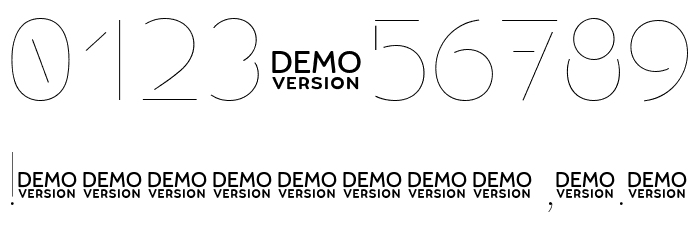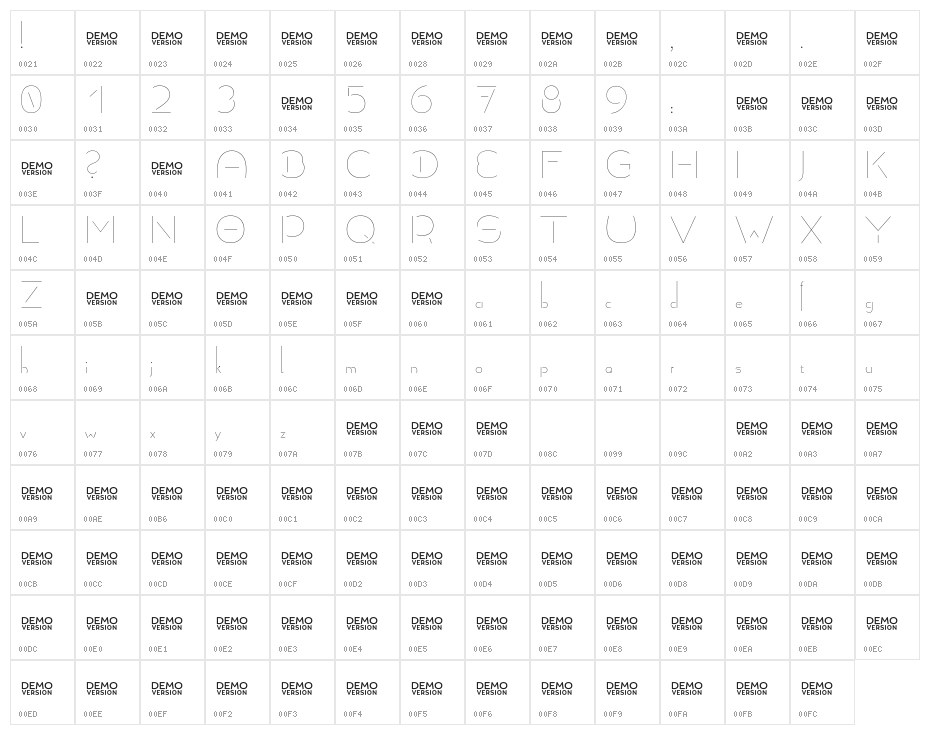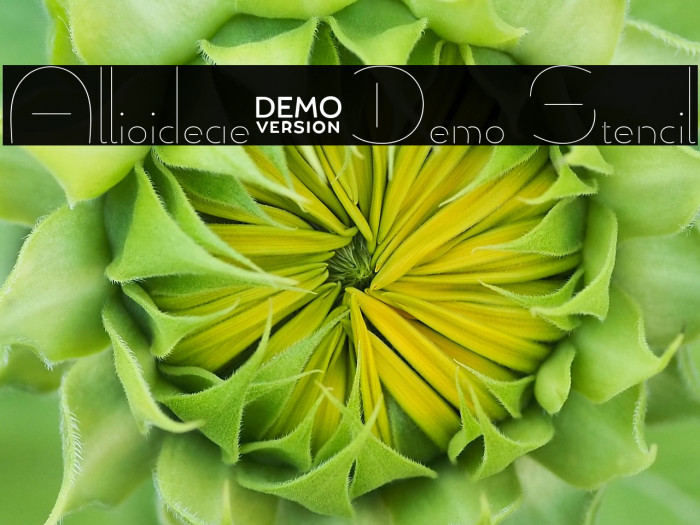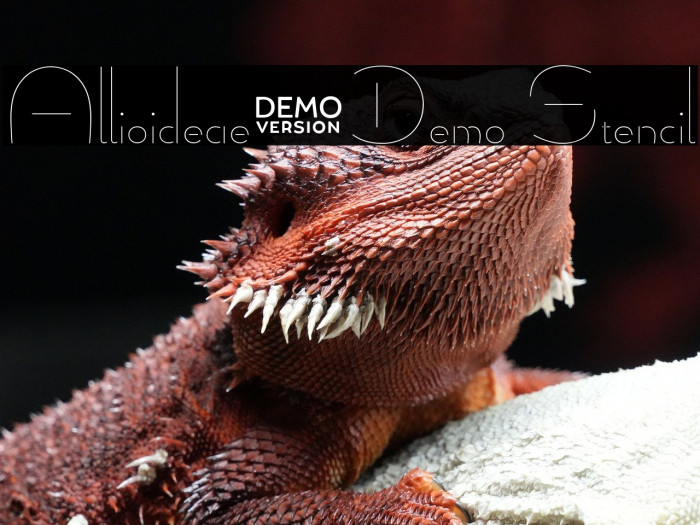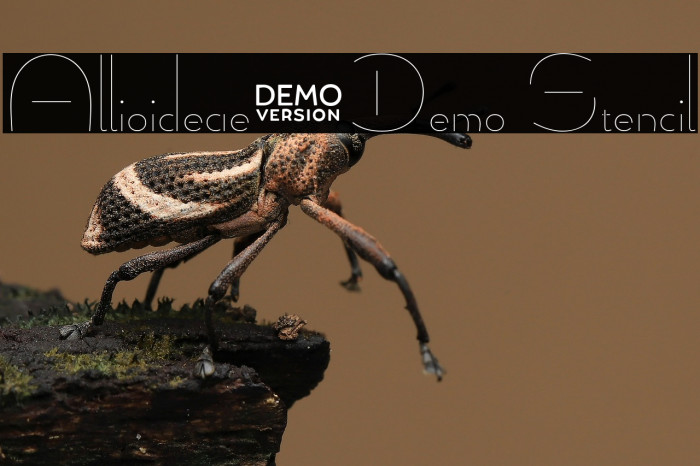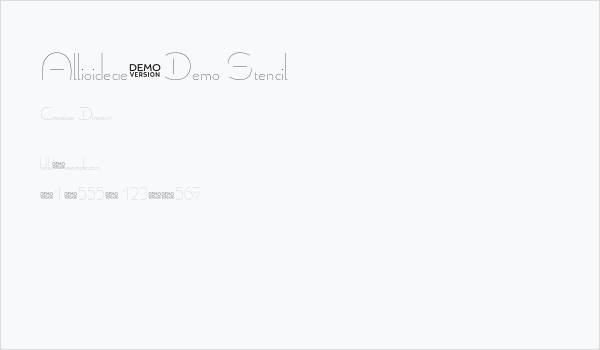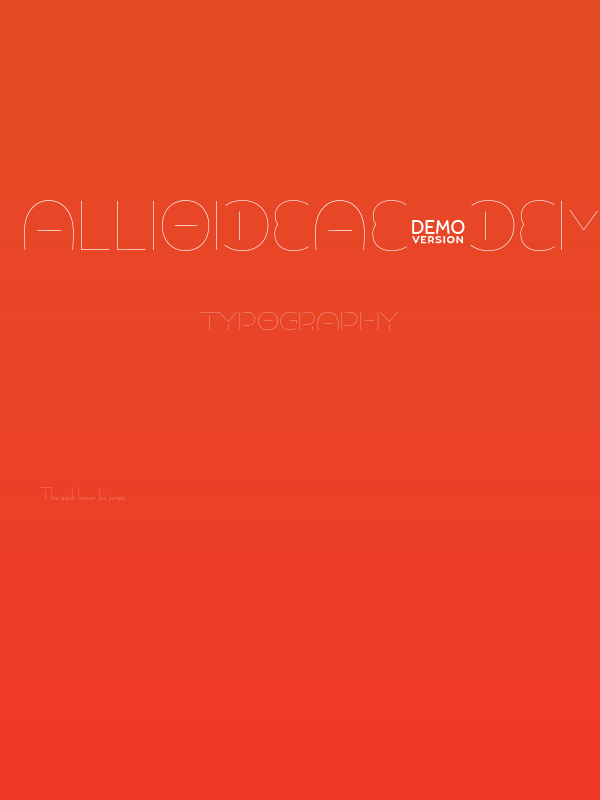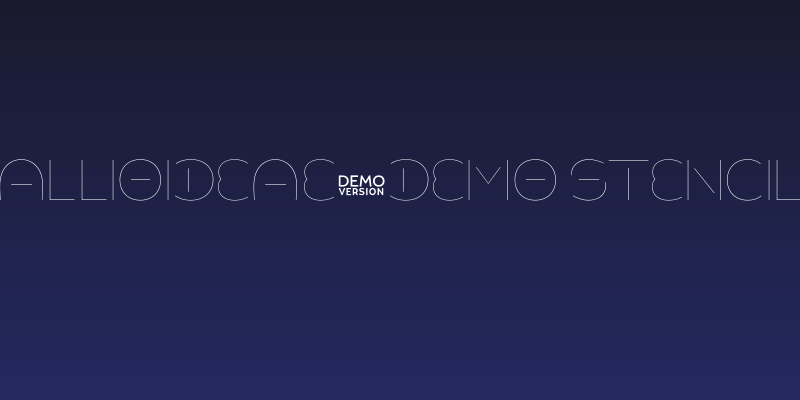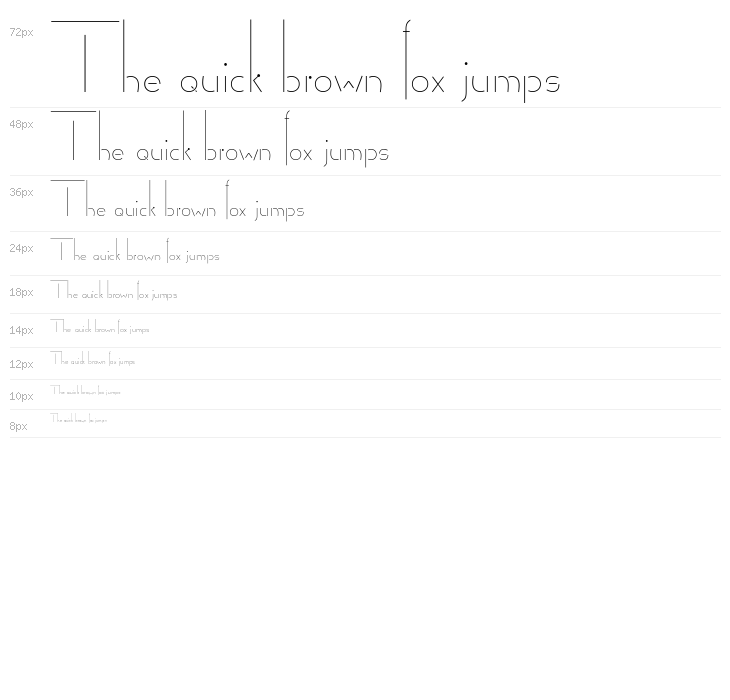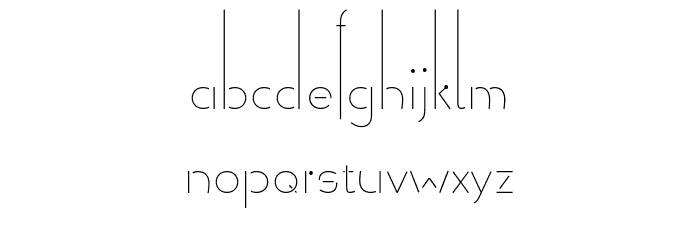
Allioideae-Demo Stencil Font
Allioideae-Demo Stencil Description
This font features a modern and minimalist stencil design, characterized by its clean lines and geometric shapes. The uppercase letters are distinct with their open spaces, creating a sense of lightness and elegance. The lowercase letters maintain a similar style, offering a cohesive look throughout the typeface. The numerals are consistent with the overall design, providing a sleek and contemporary appearance. Special characters are included, maintaining the same aesthetic, making this font versatile for various applications.
| Proposed Projects | Ideal for branding, packaging, posters, and editorial design where a modern and minimalist aesthetic is desired. |